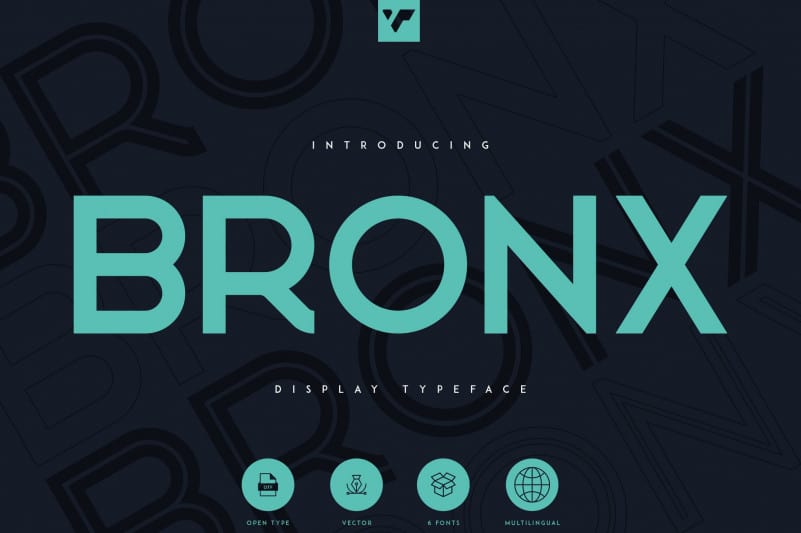
Bronx Font
Bronx – Sans Serif Font
Bronx Sans Serif Font is a high quality Sans Serif font that is designed by vp_creative_shop and is available for free download and personal use. The free version provides all uppercase and lowercase letters and a few special characters too.